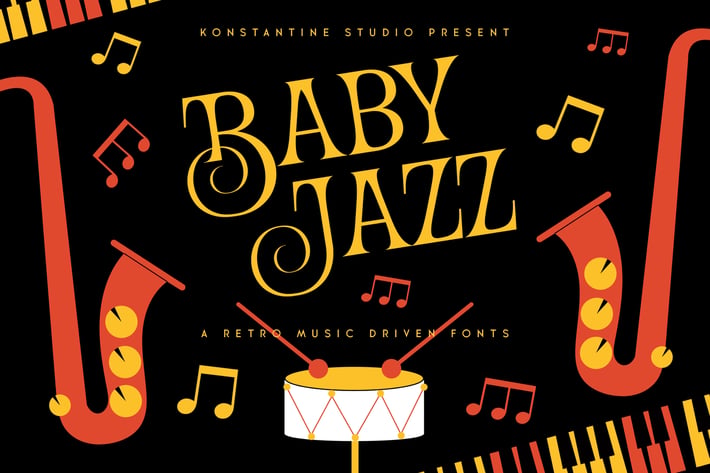
Baby Jazz - Retro Fonts
Baby Jazz is a font inspired by the visuals of music poster events and festivals back in the 80s and 70s era. Matched up so well with the vintage cartoons and comical vibes from the same moments.